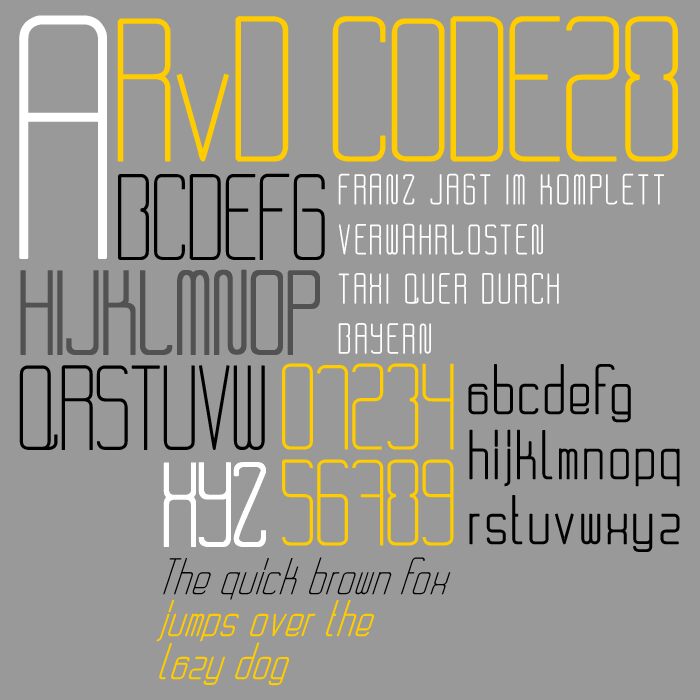
RvD CODE28 by Rich vom Dorf is a free condensed geometric sans serif with an exceptionally tall, lean silhouette. Fine monoline strokes trace squared curves, clipped joins, and narrow interiors with a precise technical edge. Rigid proportions recall drafting templates and early electronic labeling, with no extra ornament to soften their machine-made look.
Designers working in technology, architecture, and electronic music will find it well suited to interface graphics, posters, and album artwork. It also makes a sharp, economical wordmark. The combination of engineered curves and compressed width is especially convincing for futuristic branding, where the letters can function like labels from a control panel.